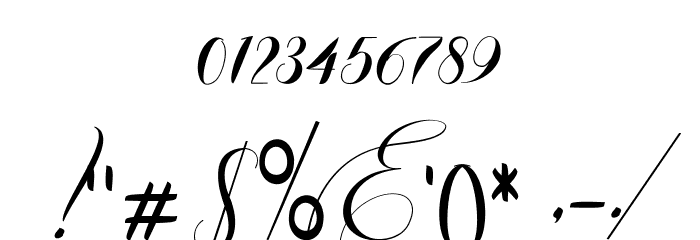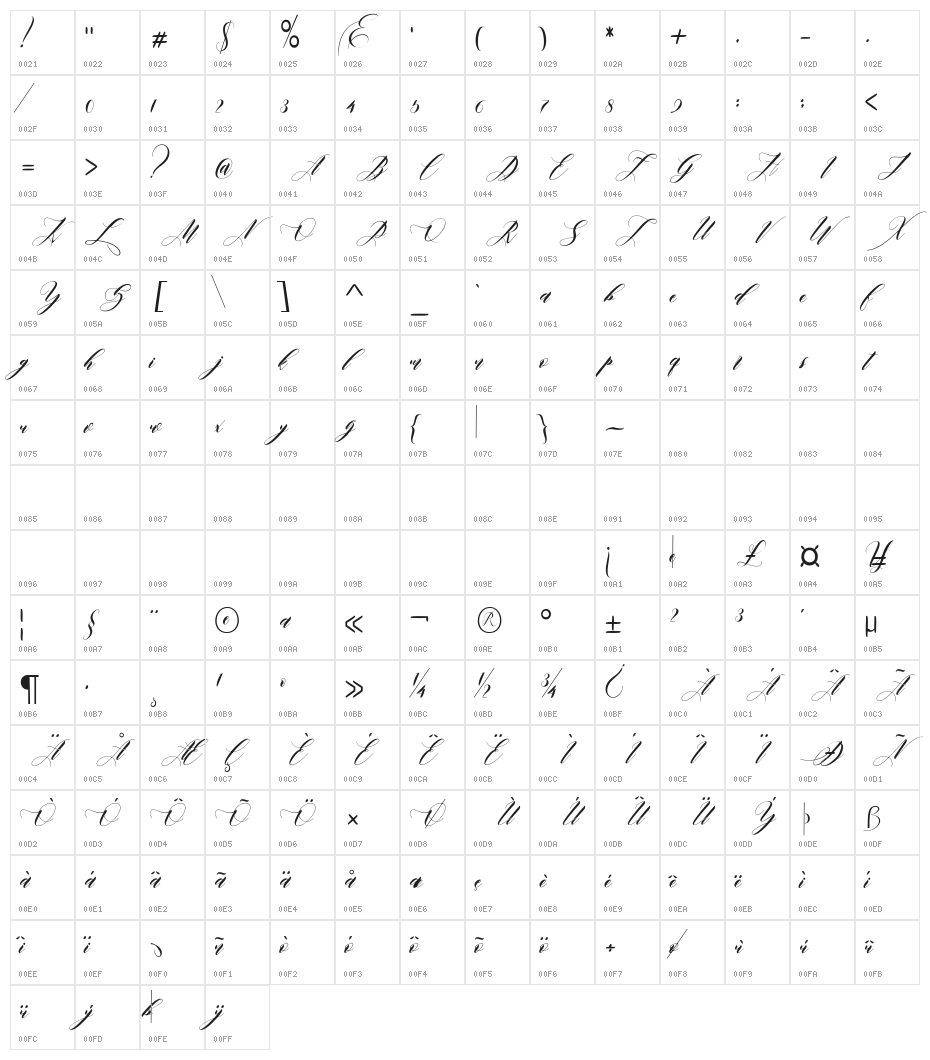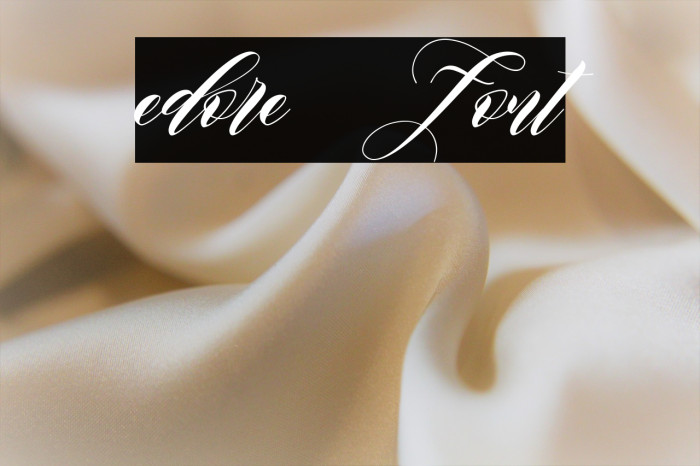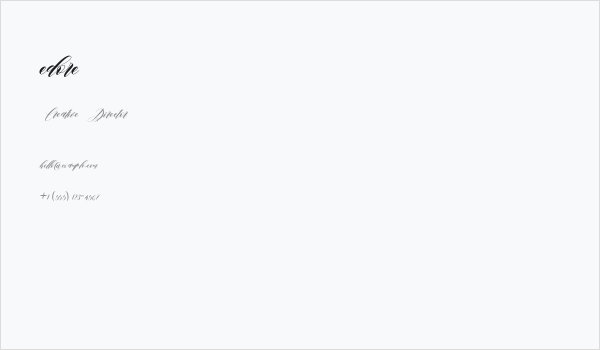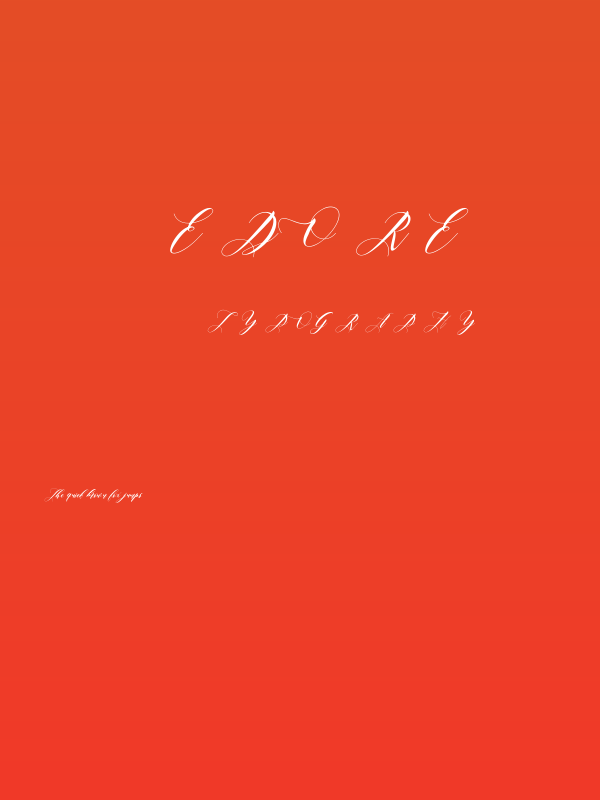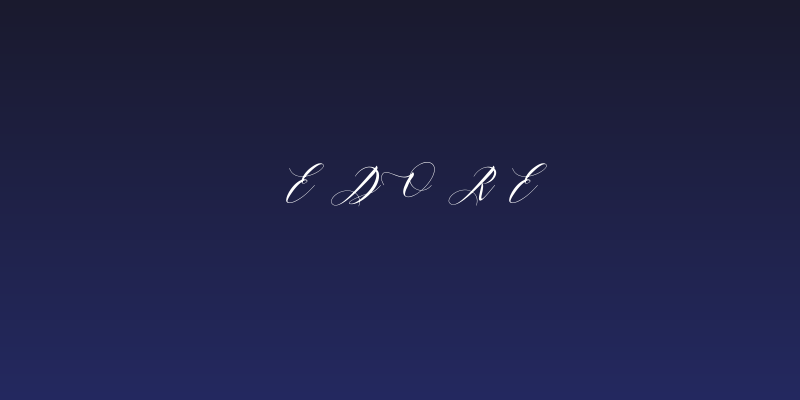
edore Font
edore Description
This elegant script font features flowing, interconnected characters with a sophisticated and artistic flair. The uppercase letters are adorned with intricate loops and swirls, giving them a decorative appearance. The lowercase letters maintain a consistent style, with smooth curves and a slight slant, enhancing the font's graceful look. The numerals are distinct yet harmonize well with the overall design, while the special characters are creatively integrated, maintaining the font's cohesive aesthetic. This font is ideal for projects that require a touch of elegance and refinement.
| Proposed Projects | Wedding invitations, luxury branding, elegant stationery, and artistic posters. |